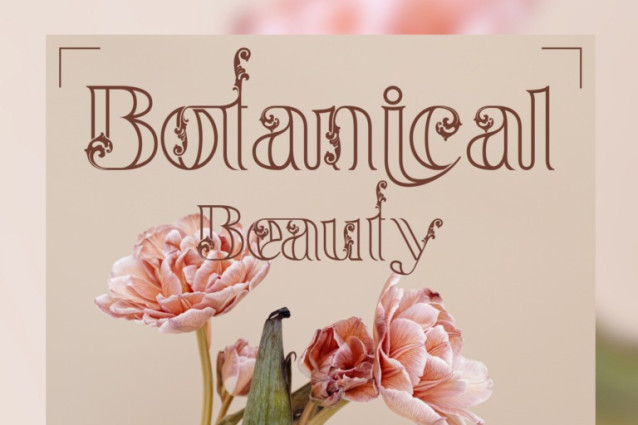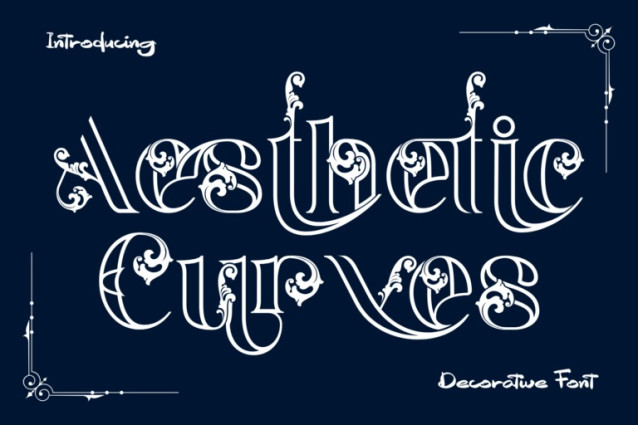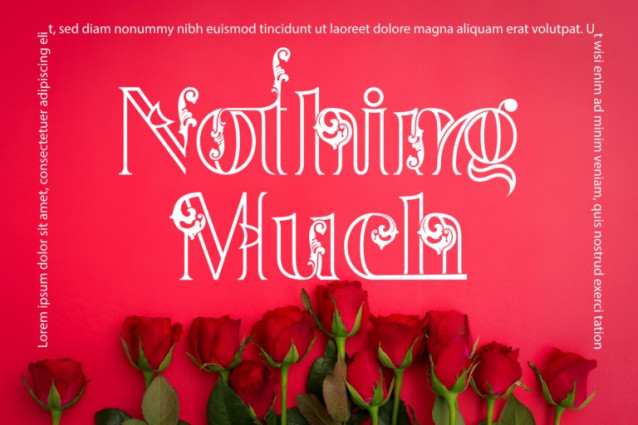
Aesthetic Curves Font
Aesthetic Curves – Gothic Font is an ornamental blackletter display typeface infused with Baroque elegance and modern sophistication. Its intricate swashes, high-contrast stems, and decorative flourishes are designed to evoke an opulent, royal aesthetic—perfect for those seeking grandeur and drama in their typography. Every glyph in Aesthetic Curves is a miniature work of art, with floral embellishments wrapping around traditional Gothic forms, creating a harmonious balance between darkness and grace.
Full set of Uppercase & Lowercase Characters
100+ Handcrafted Ligatures & Swashes
Numerals, Punctuation & Extended Language Support
About 100 ligatures combined with Stylistic Alternates Font: